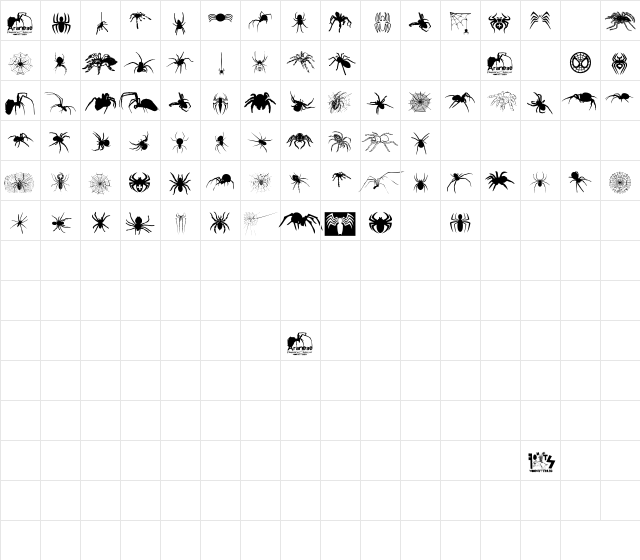
Aranea Regular Free Font
Aranea Regular
Design Context for Aranea
Aranea is a composed and adaptable typeface that performs quietly and consistently across a wide range of design contexts.